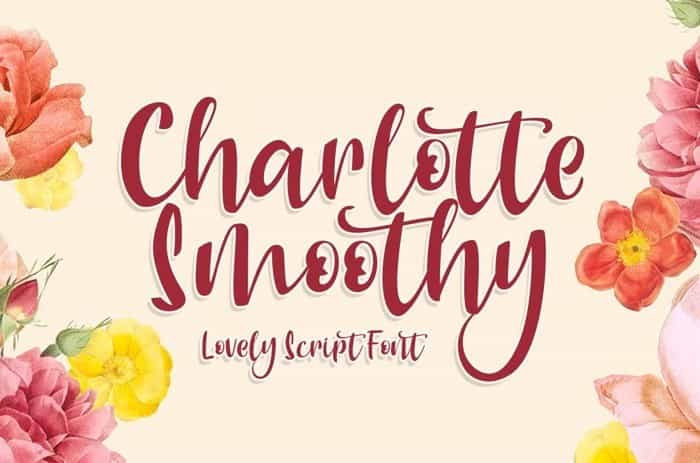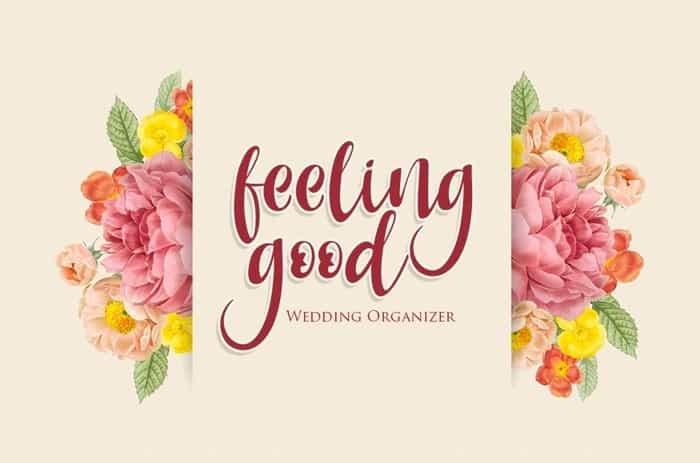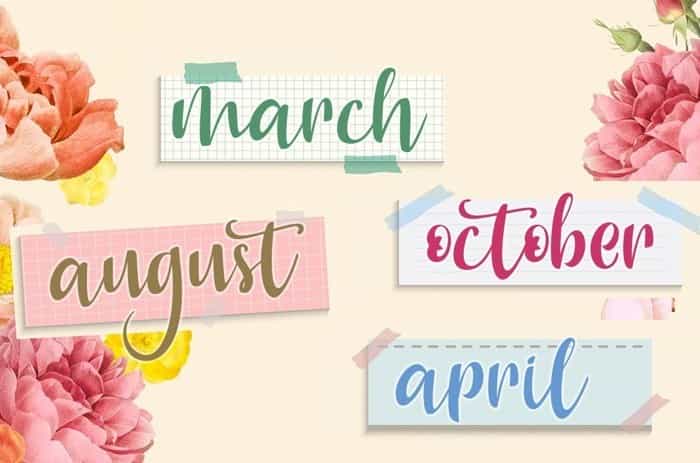
An excellent type treatment is Charlotte Smoothy, which has its very own unique flavor. Each character was designed many times over so that when they were used in layout on Charlotte Smoothy, it was just right. It fits seamlessly into any program too!